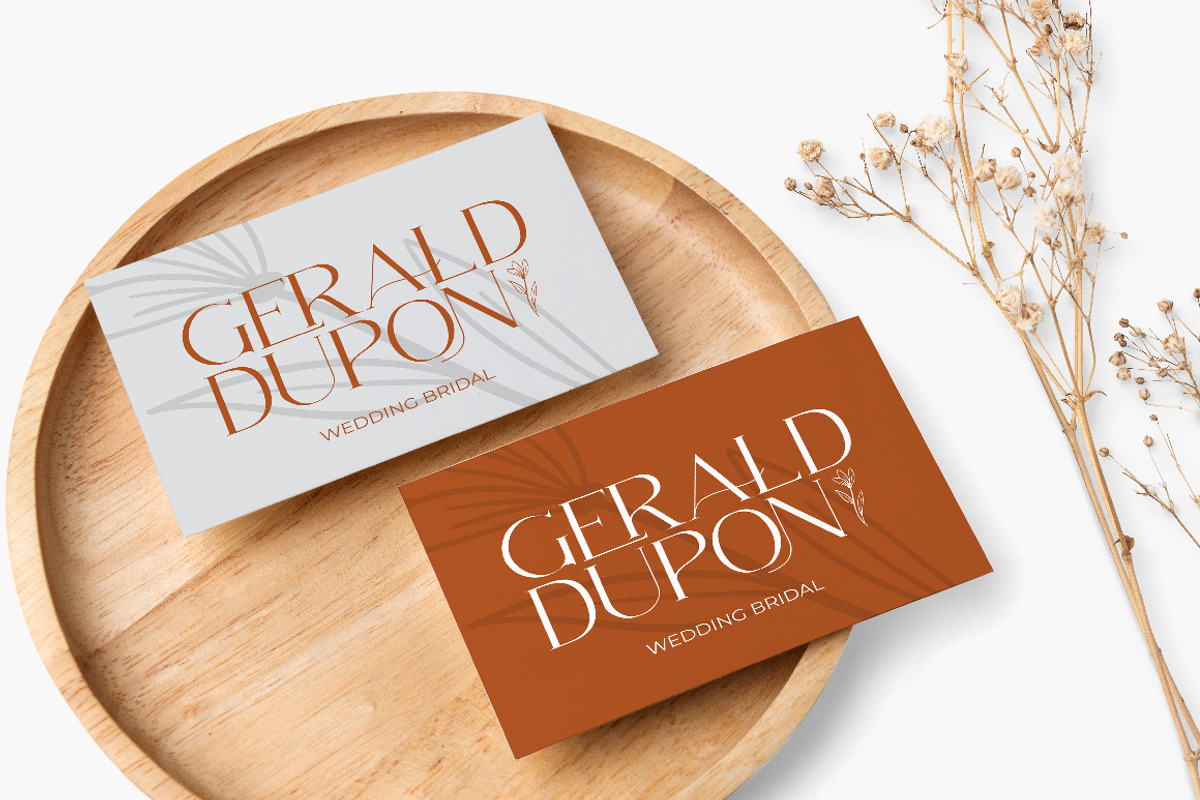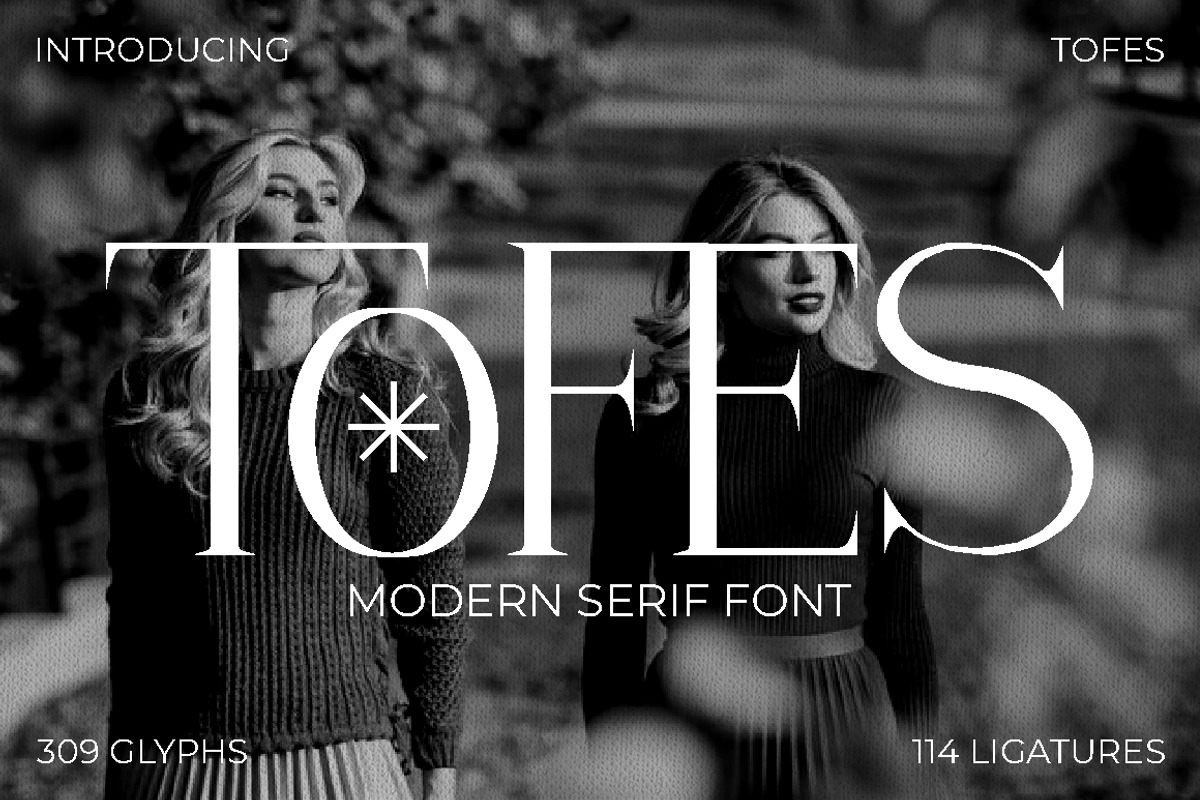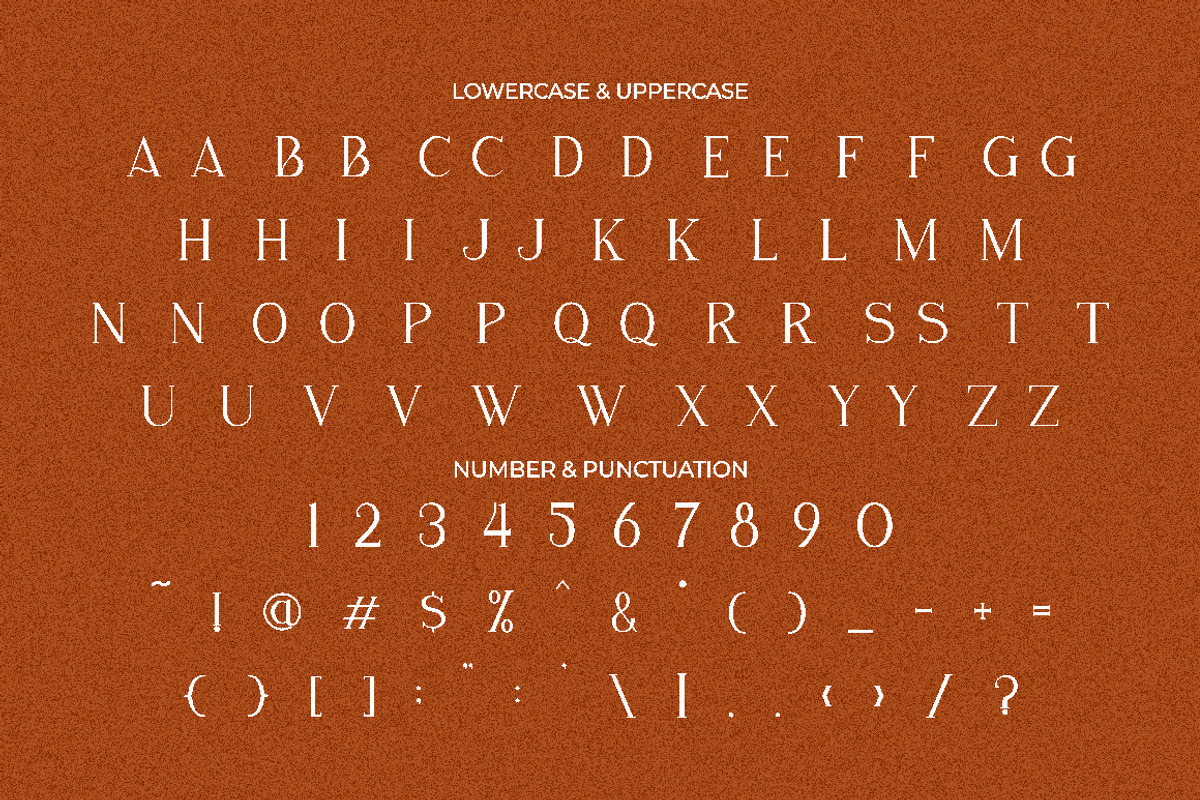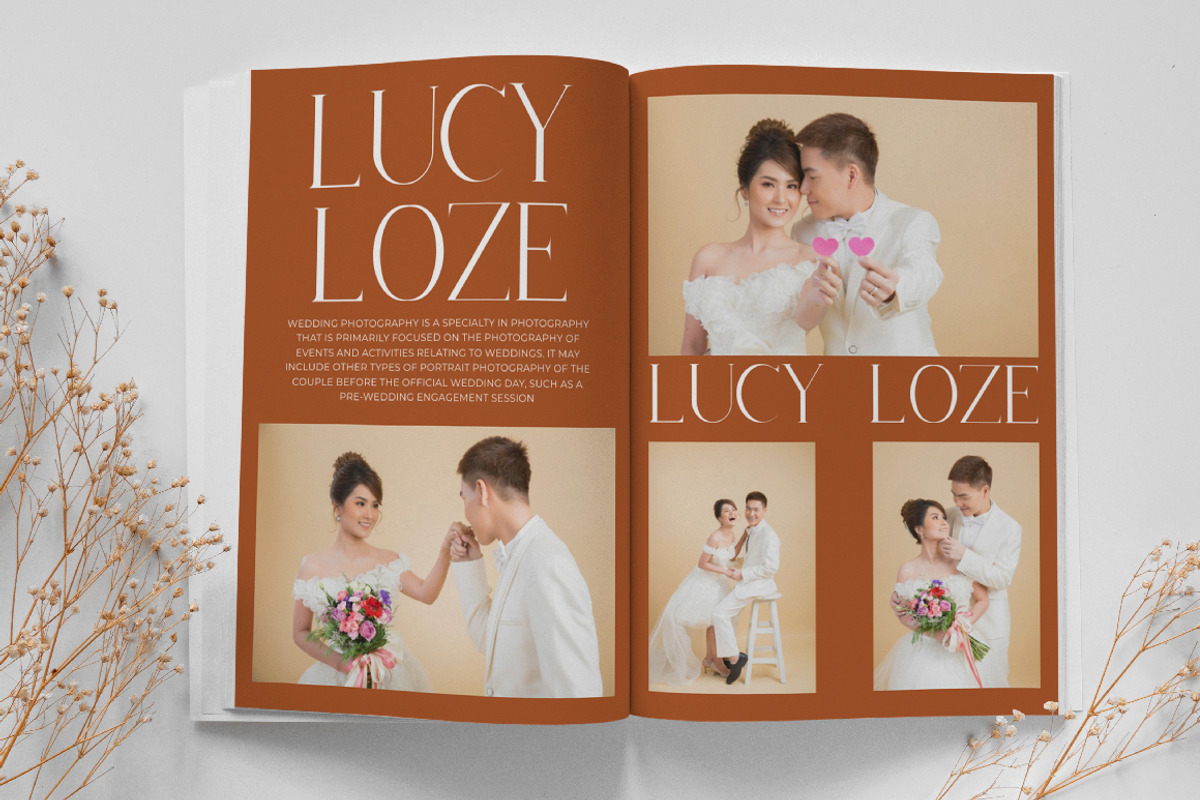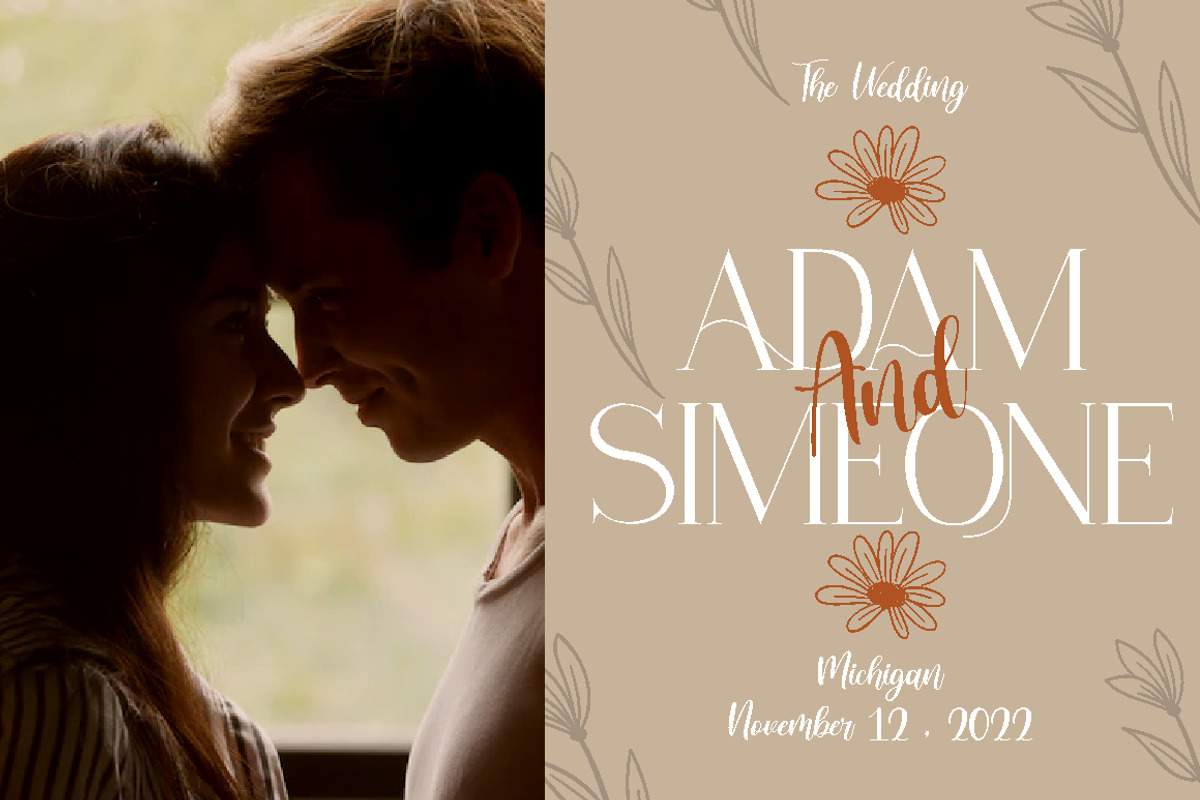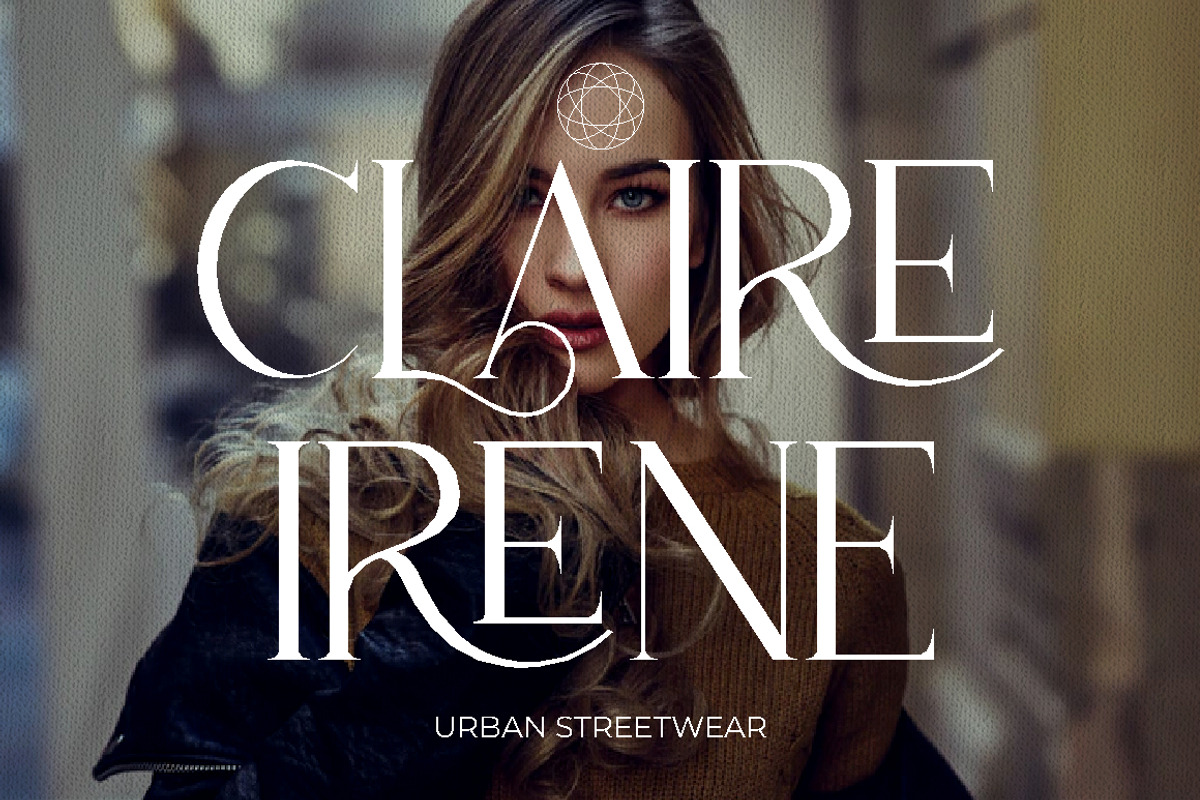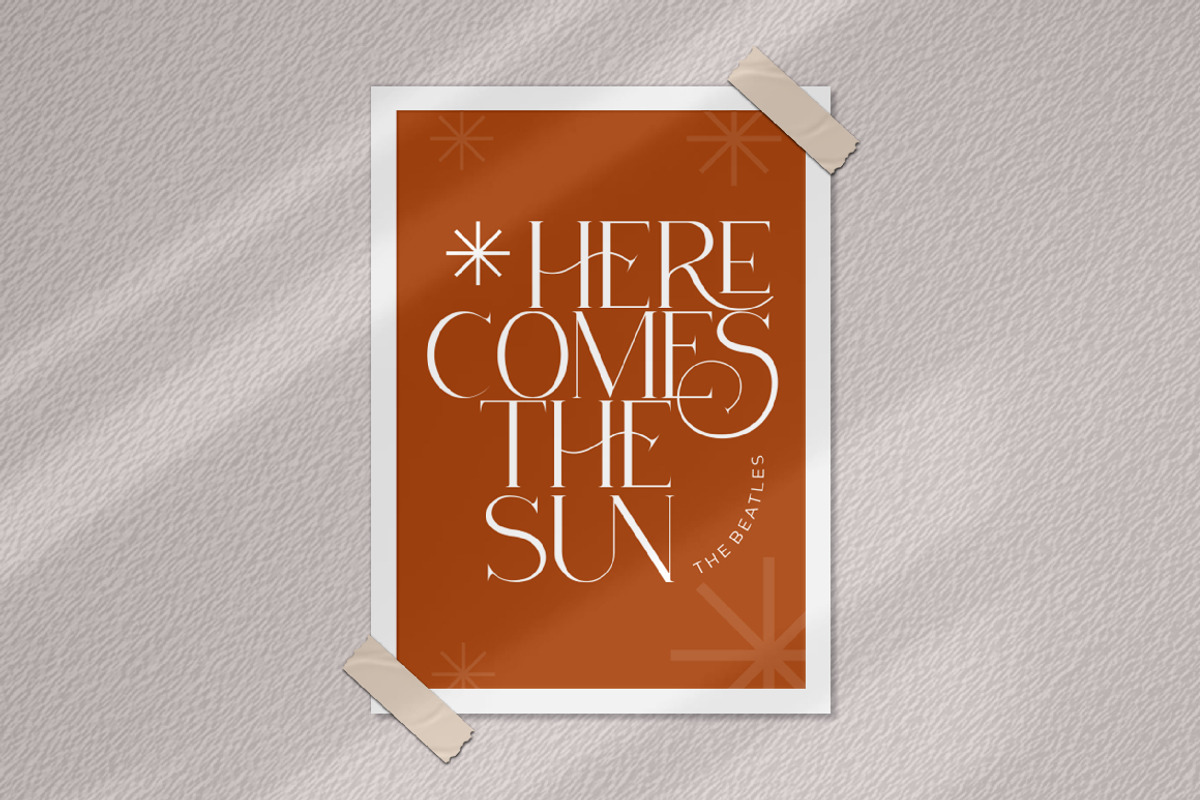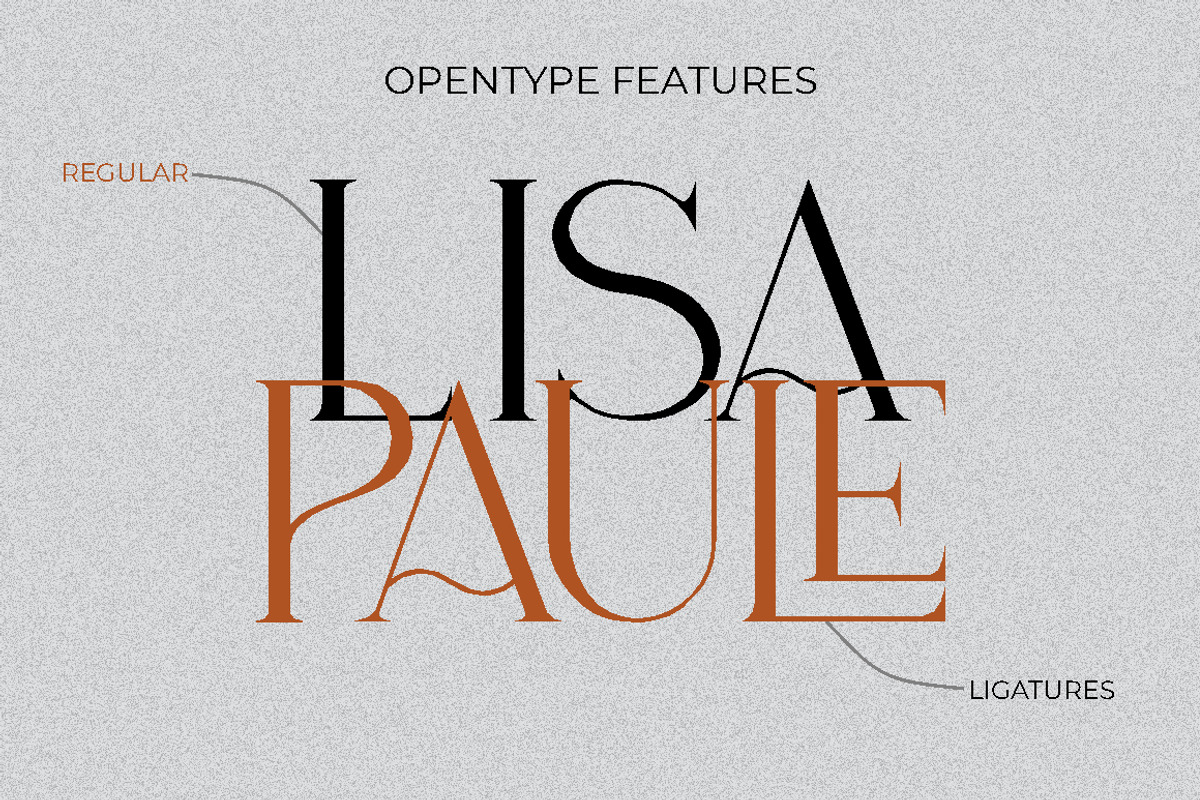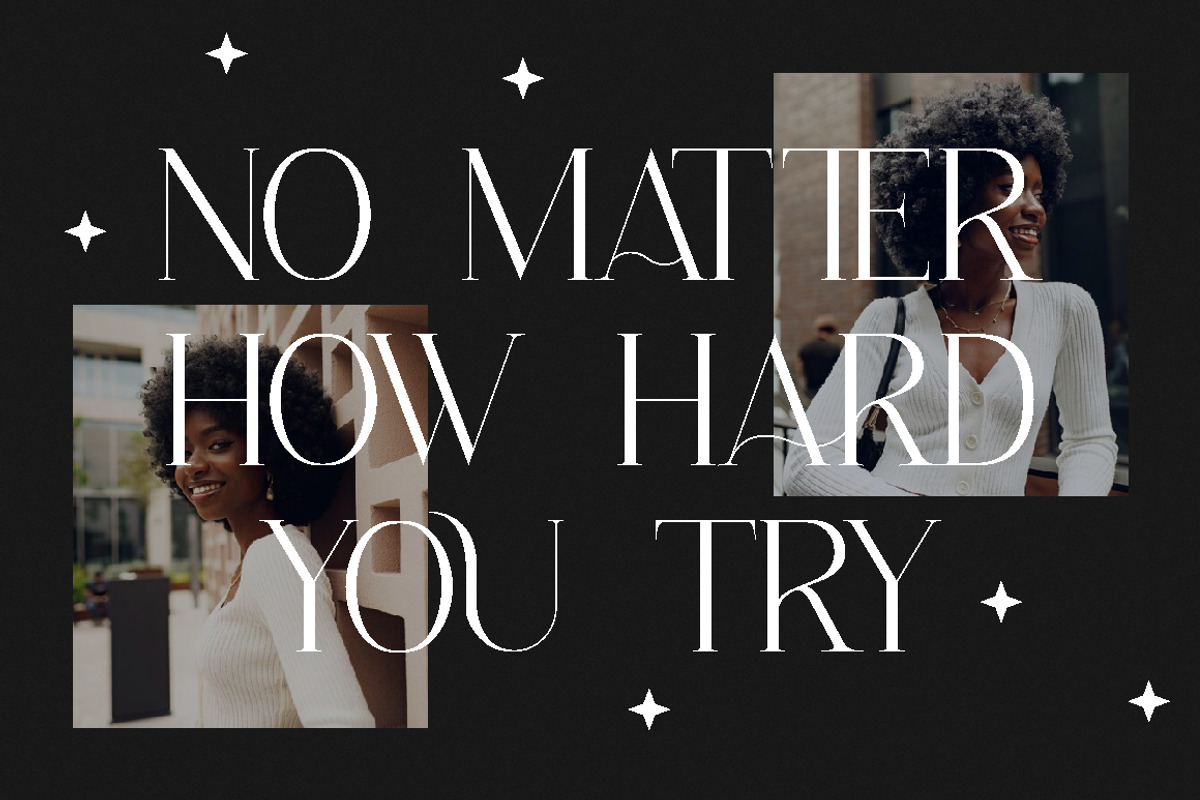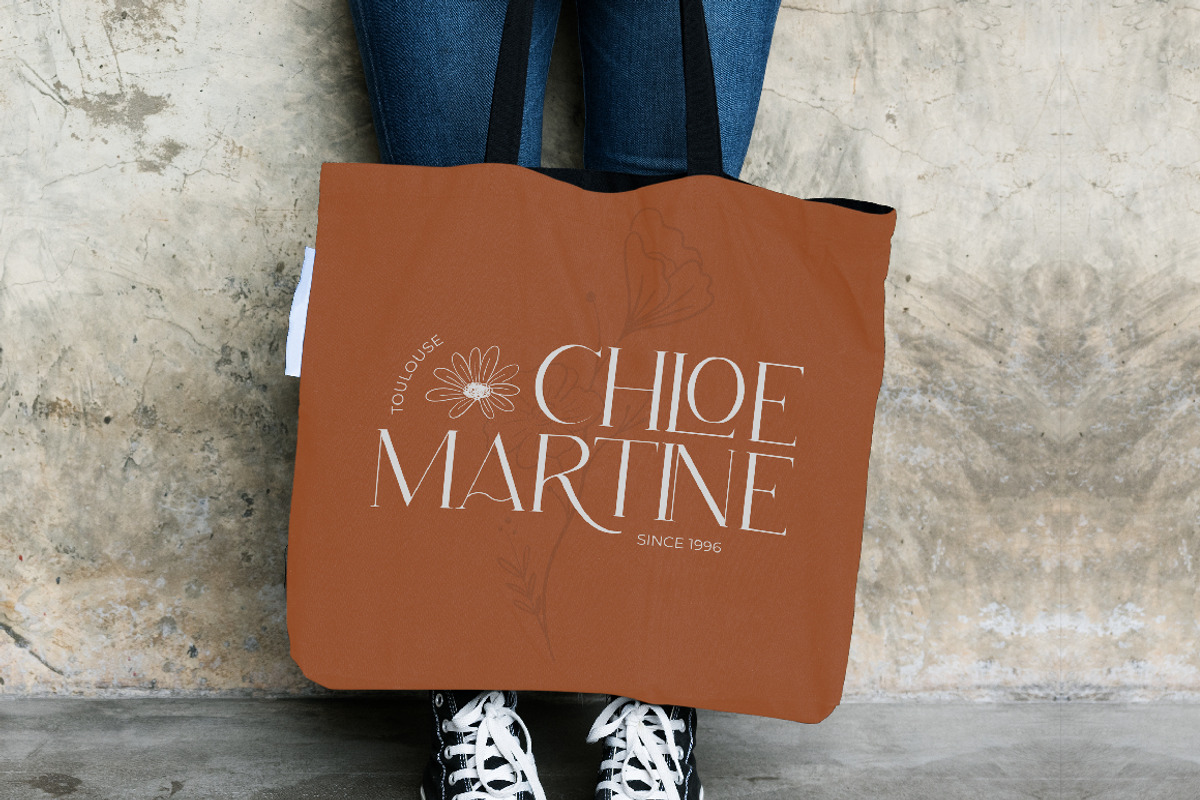
Tofes - Modern Serif Font
Tofes - Modern Serif Font is a versatile typeface that exudes elegance and sophistication. This font is perfect for any project that requires a touch of luxury and class, such as branding, packaging, logos, and more. The font's name is inspired by the Hebrew word for "apple," which symbolizes beauty and perfection. With its clean lines and modern look, Tofes is a must-have for any designer looking to create stunning and professional designs.
If you're looking to create a romantic and elegant branding, Tofes is the perfect font for you. Its clean lines and modern look give it a timeless quality that works well for a variety of design projects. This font is particularly well-suited for use in packaging and logos, where it can help convey the quality and sophistication of your brand.
Tofes comes with a range of features that make it a versatile and useful typeface. The font includes both uppercase and lowercase letters, as well as Opentype features such as alternates and ligatures. It also includes support for a wide range of languages, making it a great choice for designers working on international projects. Additionally, Tofes comes with number, punctuation, and symbol glyphs, allowing you to create a wide range of design elements with ease.
In summary, Tofes - Modern Serif Font is a versatile and elegant typeface that is perfect for a wide range of design projects. With its clean lines, modern look, and support for multiple languages, Tofes is an excellent choice for designers looking to create sophisticated and professional designs. Its features, including Opentype alternates and ligatures, make it a valuable addition to any designer's toolkit.